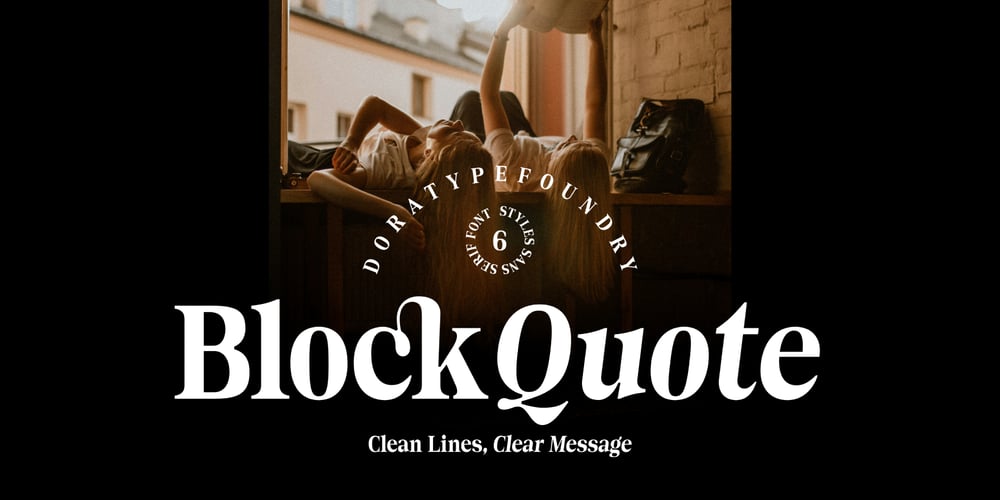
Block Quote
Block Quote font
Block Quote Font Family was designed by Zahratul Laila and published by Dora Typefoundry. Block Quote contains 6 styles and family package options. Block Quote is a stunningly sleek and exotic beautifully crafted serif typeface that combines classic elegance with a contemporary design sensibility making it an ideal choice for creating elegant modern designs. Block Quotes come in Three styles: Regular, Condensed, and Rounded.Features All Uppercase and Lowercase Numbers & Symbols Supported Languages Alternates and Ligatures PUA Encoded We strongly recommend using programs that support OpenType features and Glyphs panels such as Adobe and Corel Draw applications, so you can view and access all variations of Glyphs.Families like this have become a true labor of love, making it as easy and enjoyable as possible. I really hope you enjoy it! if you have any questions or problems please contact email: doratypefoundry@gmail.comHappy designing!